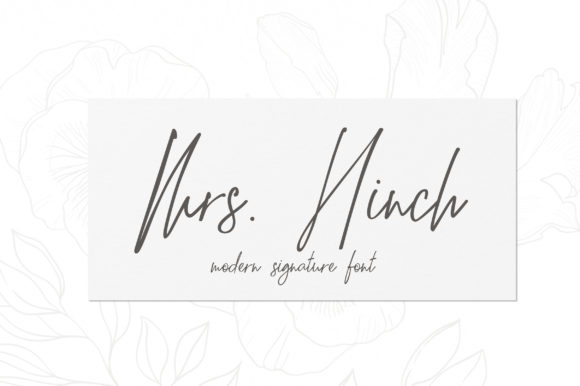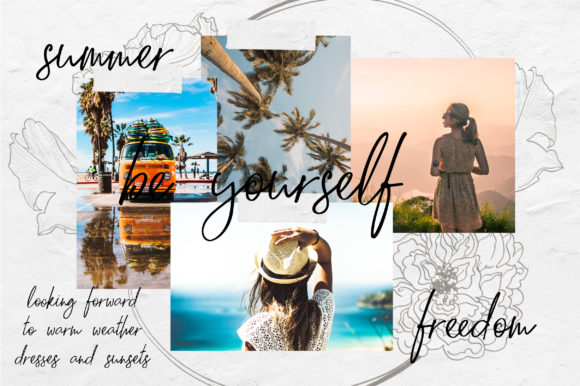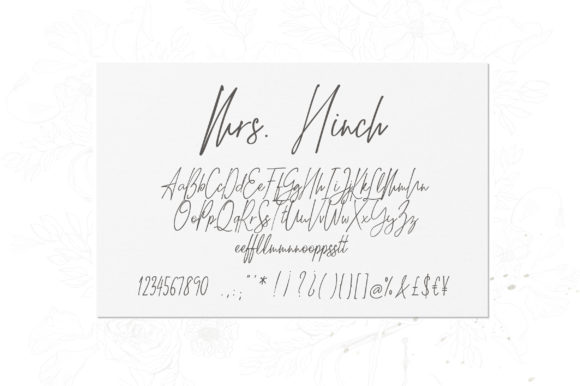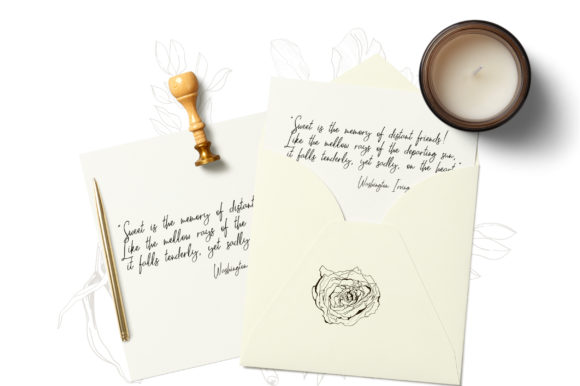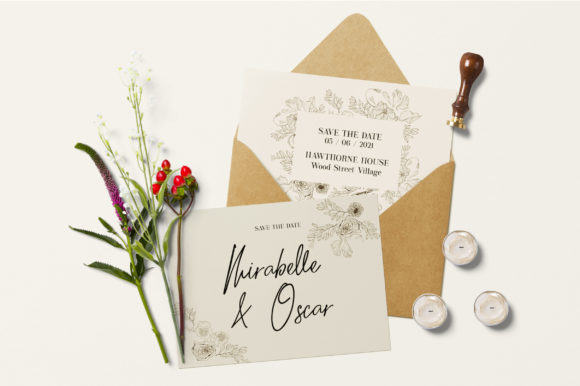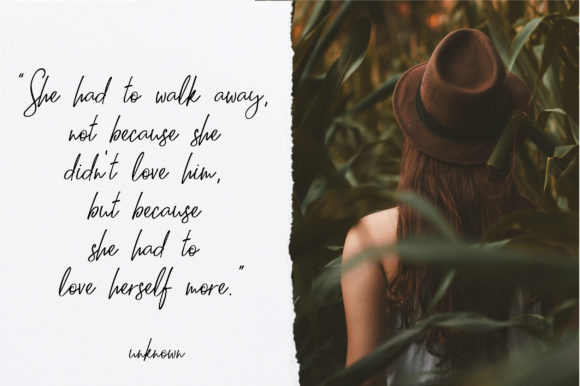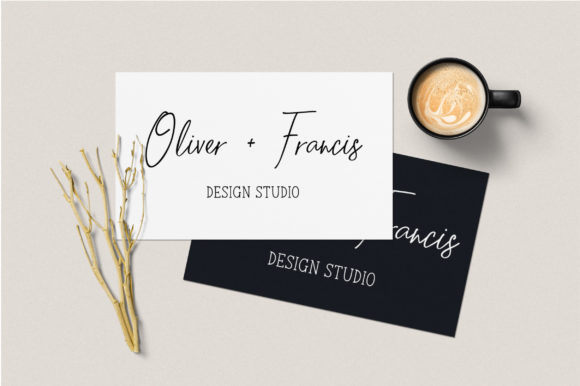
Mrs. Hinch Font
About Mrs. Hinch Font
Mrs. Hinch is a modern and stylish signature script font.
This font is neatly crafted and highly detailed. Whatever the topic, this font will be a wonderful asset to your font library, as it has the potential to enhance any creation.